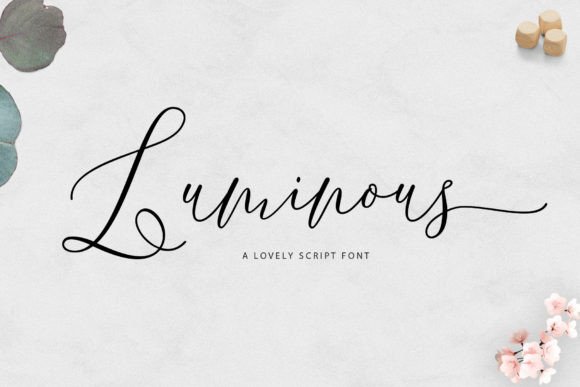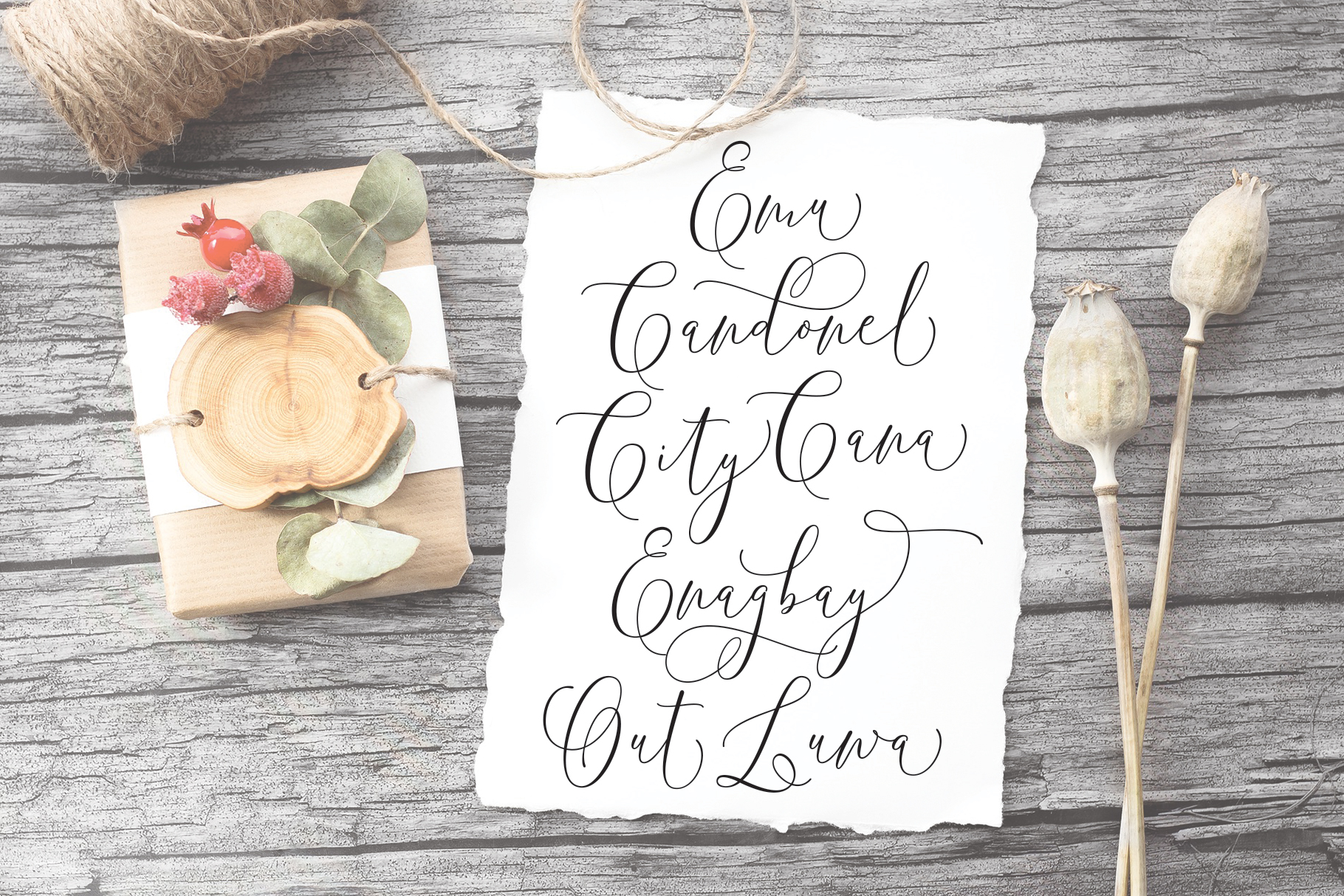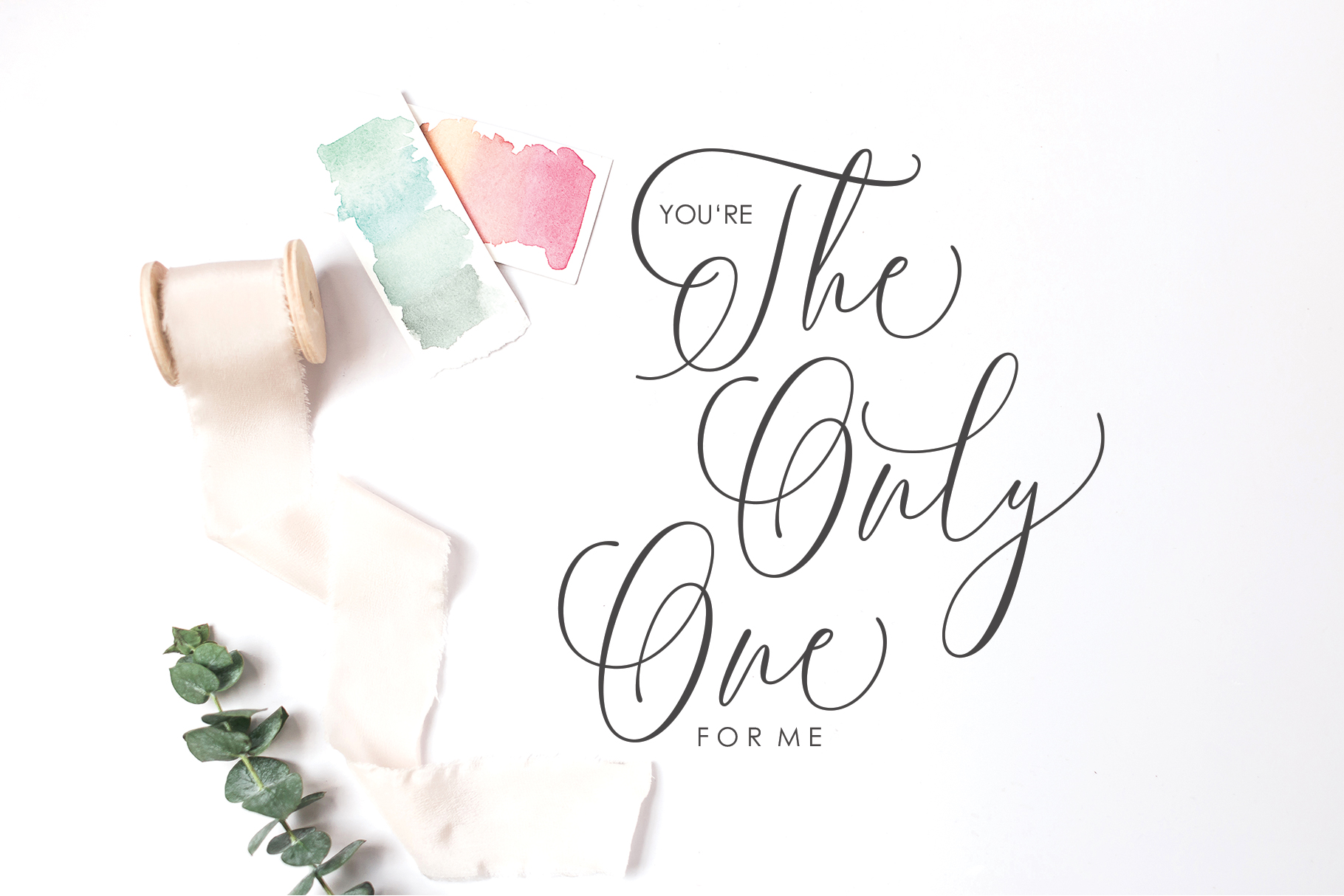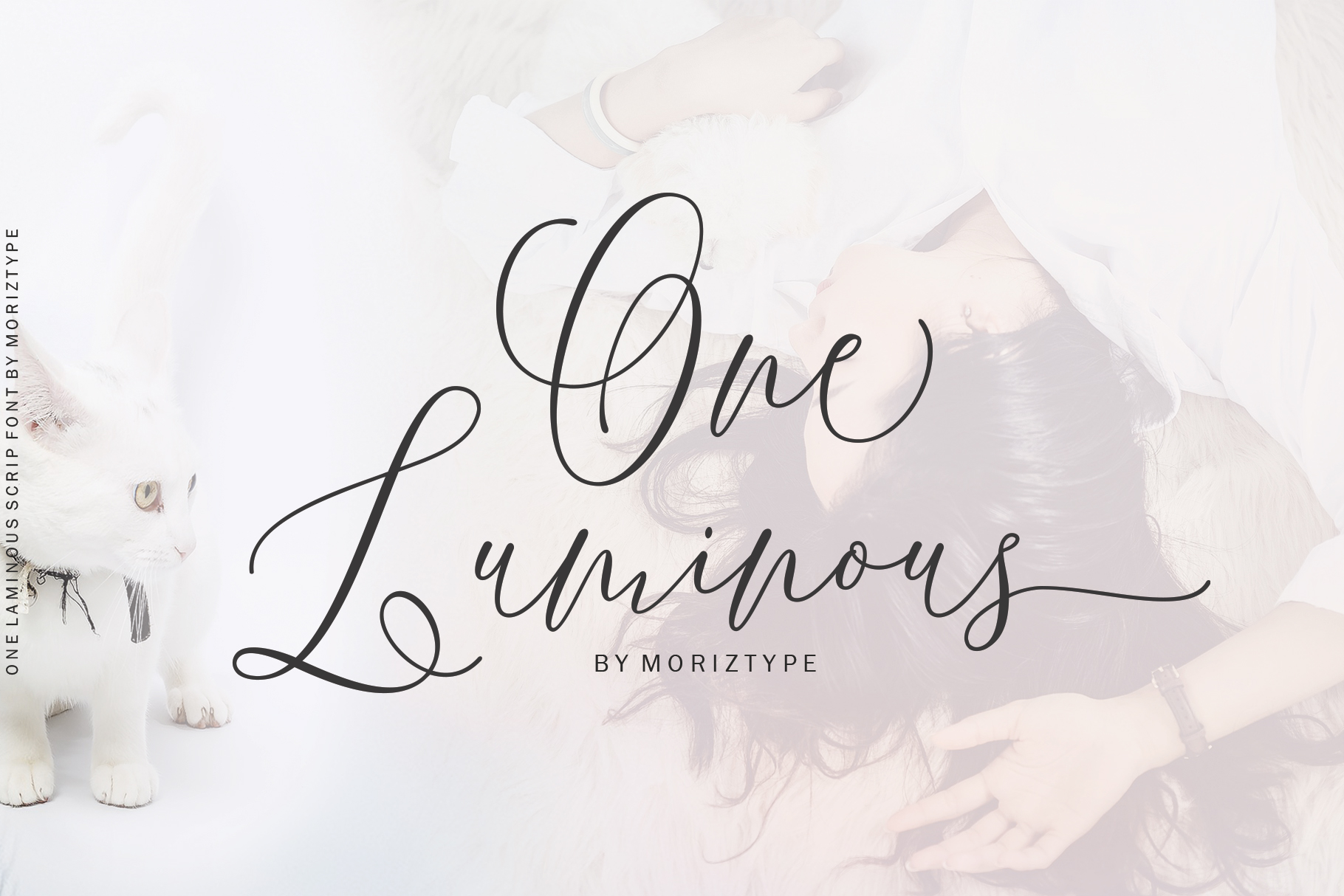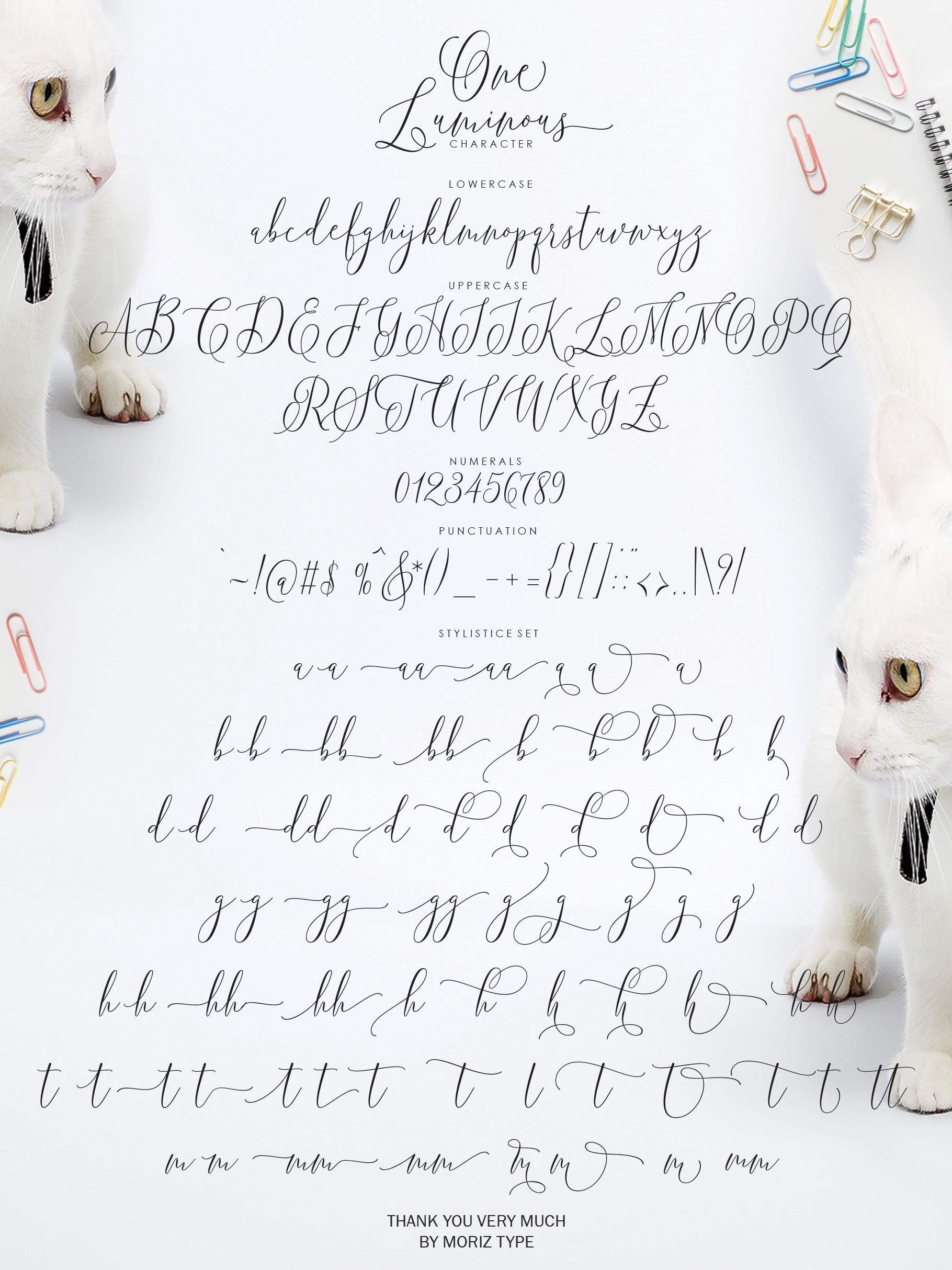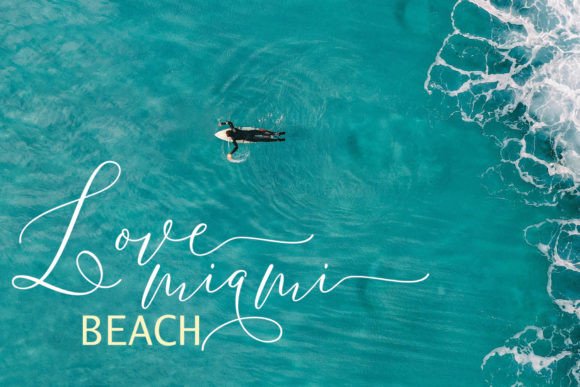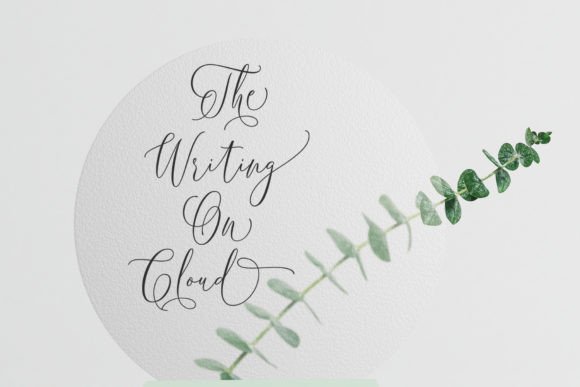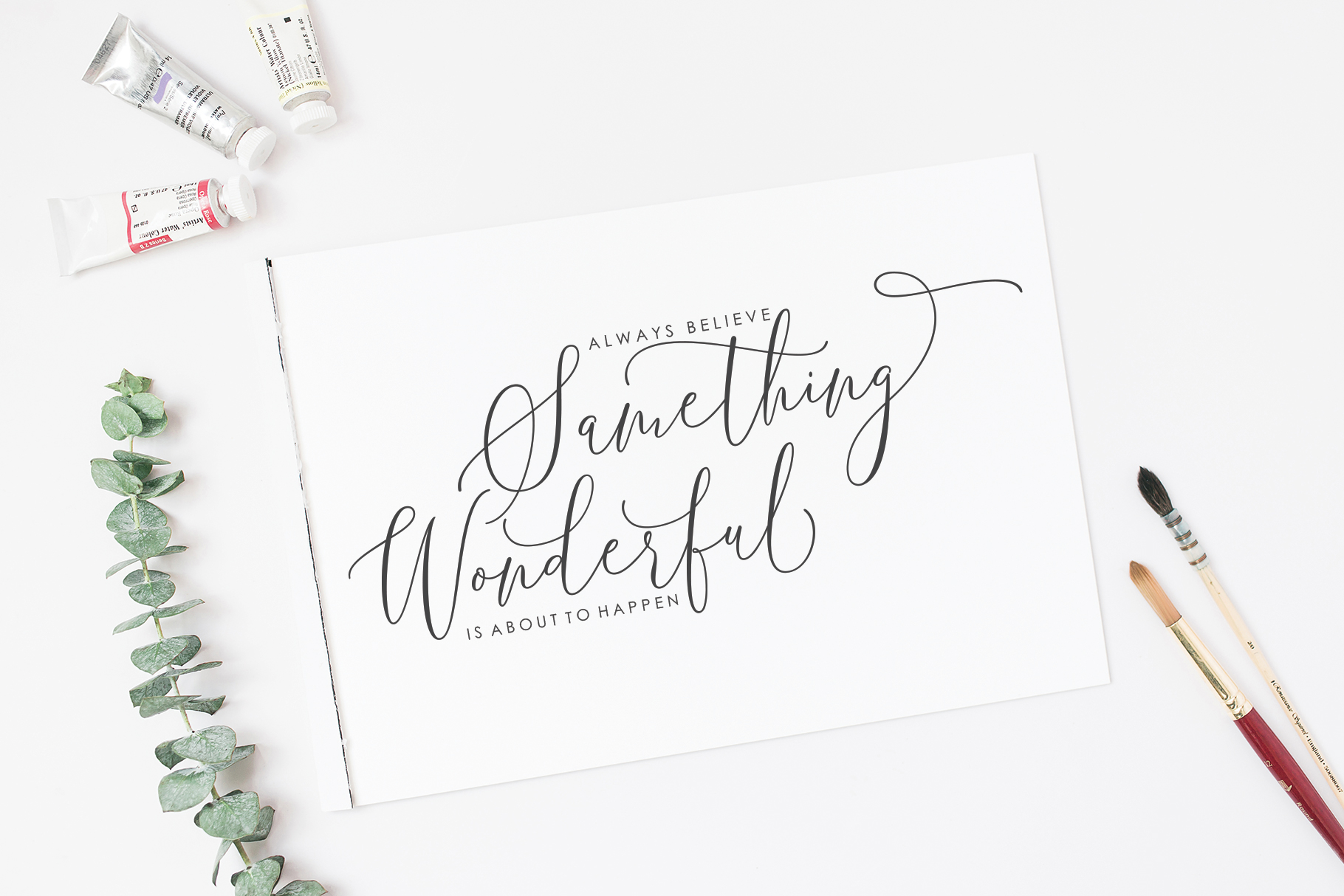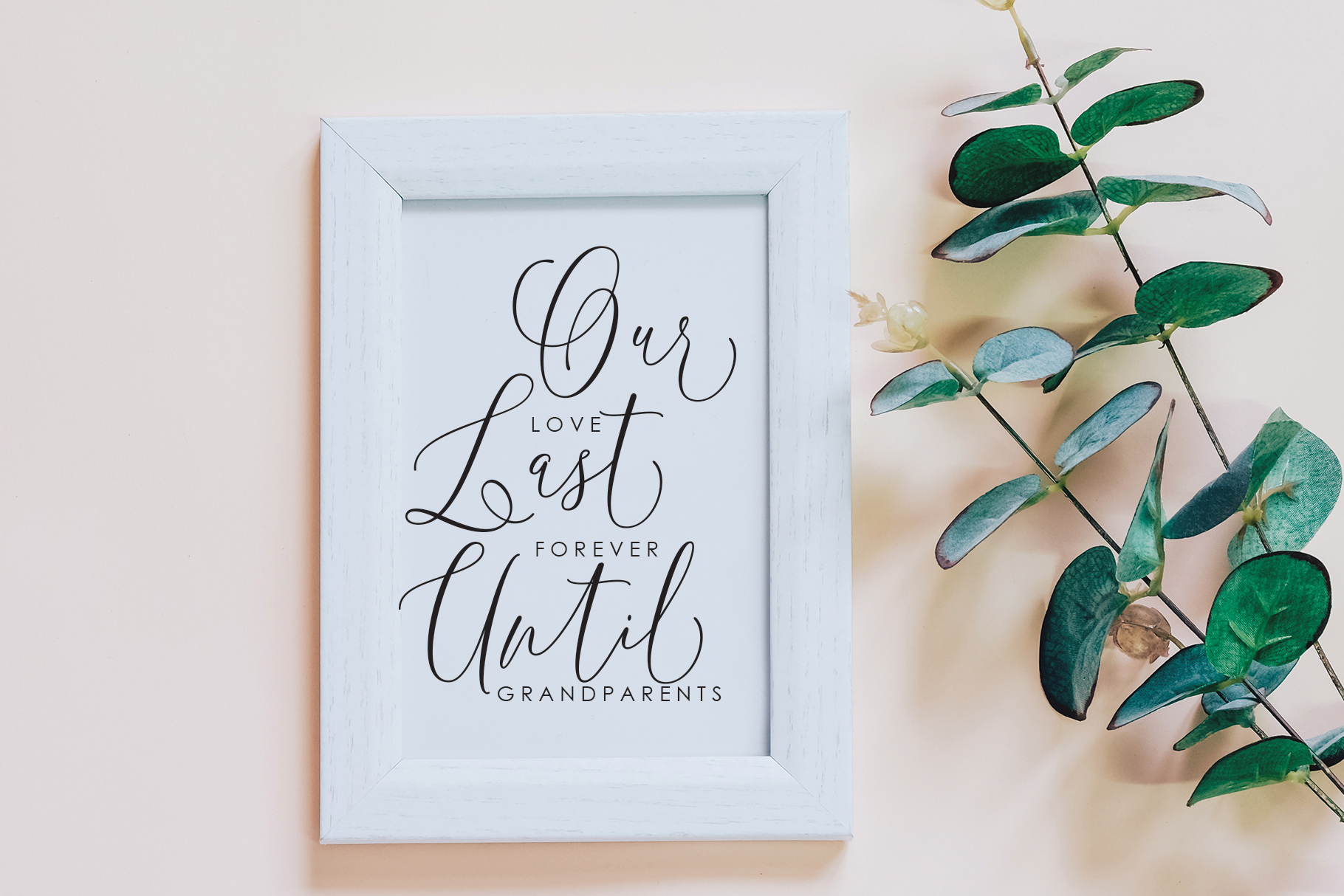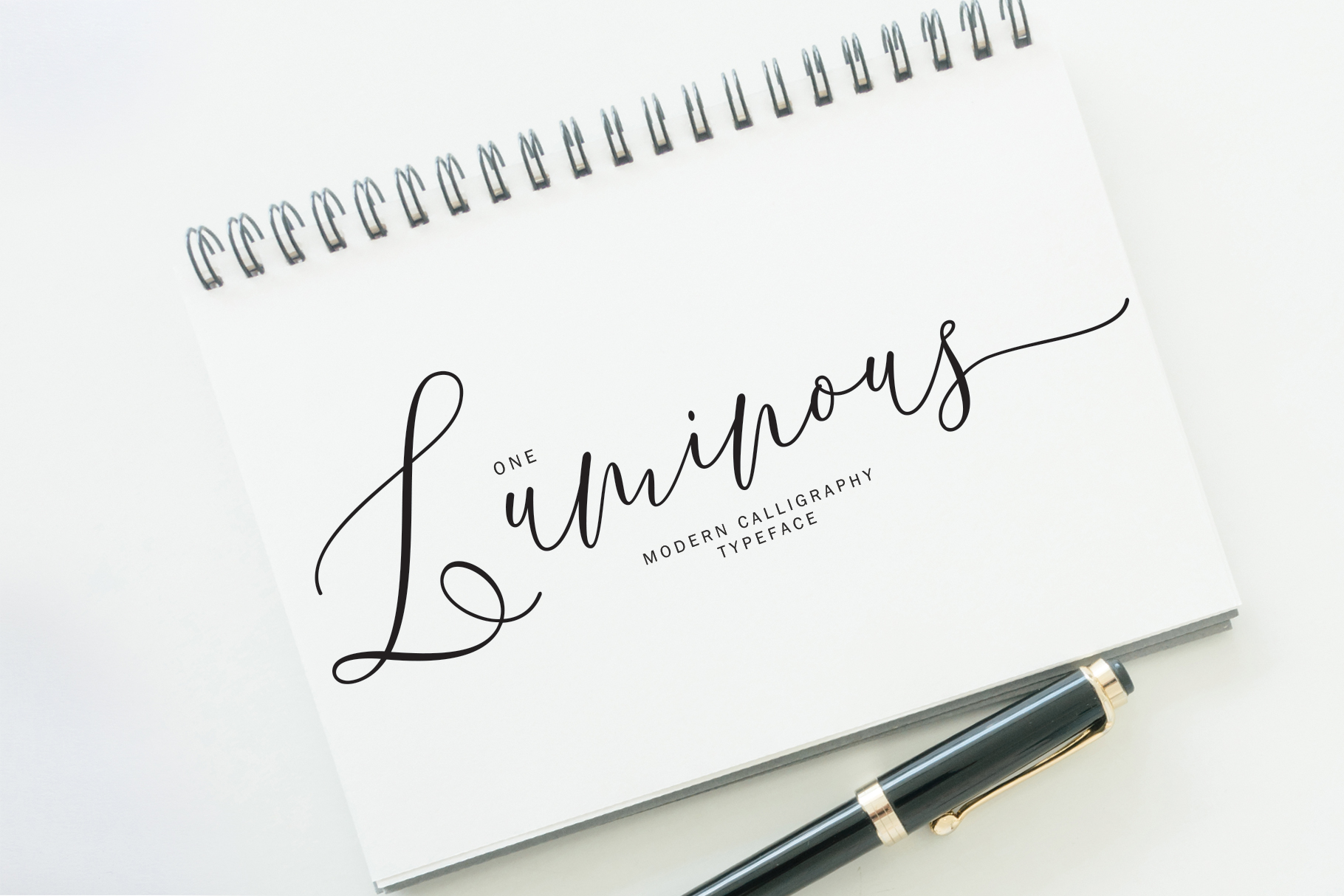
One Luminous Font
About One Luminous Font
One Luminous is a stunning calligraphy font full of elegance and class! This font was specifically crafted for those of you who need a touch of elegance in your designs. This font is an interesting and fine script, and looks great across a wide range of project types.